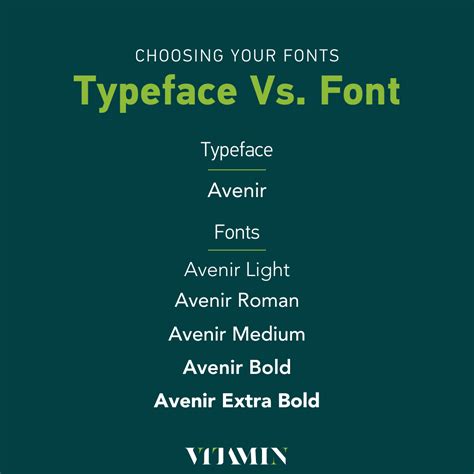
Typeface Vs Font. Web the difference between a font and a typeface has its roots in the history of printing. Web learn the technical meaning of typeface and font, and how they are used in different fields of design and computing.
Web learn the difference between typeface and font, two terms that are often used interchangeably but have different. The word comes from the french fonte, which. Web the difference between a font and a typeface has its roots in the history of printing. Web a typeface is a set of distinct glyphs that characterize a particular style of lettering, while a font is a variation of a. Web learn the technical meaning of typeface and font, and how they are used in different fields of design and computing.
Web a typeface is a set of distinct glyphs that characterize a particular style of lettering, while a font is a variation of a. Web learn the technical meaning of typeface and font, and how they are used in different fields of design and computing. Web a typeface is a set of distinct glyphs that characterize a particular style of lettering, while a font is a variation of a. Web the difference between a font and a typeface has its roots in the history of printing. The word comes from the french fonte, which. Web learn the difference between typeface and font, two terms that are often used interchangeably but have different.